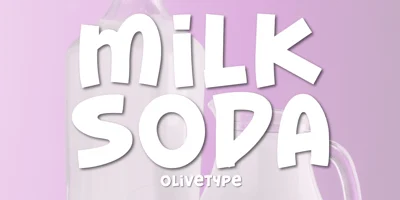
Milk Soda Font
Milk Soda Font is perfect for retro beverage branding, vintage diner signage, soda fountain graphics, nostalgic candy packaging, 1950s-themed events, classic ice cream parlor materials, bubbly lifestyle campaigns, old-fashioned sweet shop identity, fizzy product designs, and refreshing applications that celebrate the innocent charm and effervescent joy of classic American soda fountain culture.
What makes Milk Soda Font truly exciting is its authentic capture of soda fountain nostalgia and effervescent sweetness that transports audiences back to the golden age of ice cream parlors and neighborhood drugstore counters. This exceptional typeface embodies the spirit of classic American refreshment with its bubbly letterforms and fizzy character that convey both nostalgic charm and refreshing energy. The font's effervescent personality and vintage appeal make it perfect for brands seeking to communicate wholesome fun, nostalgic sweetness, and the timeless pleasure of simple refreshment experiences that bring smiles and create happy memories.
The Milk Soda Font family includes multiple weights and styles: Light, Regular, Bold, Bubbly, and Fizzy variations designed for maximum refreshing impact. Each family member maintains the distinctive soda fountain character while offering flexibility for diverse beverage applications and nostalgic branding systems. The comprehensive character set supports sweet typography needs and vintage design elements, making it suitable for international refreshment communications.
When you choose Milk Soda Font, you're selecting a typography treat that delivers authentic soda fountain charm and effervescent vintage appeal. This refreshing typeface excels in applications where nostalgia and sweetness are essential ingredients, delivering exceptional bubbly energy while maintaining wholesome authenticity. Whether you're designing beverage brands, vintage campaigns, sweet product packaging, or nostalgic marketing materials, this font provides the soda fountain charm and effervescent joy that resonates with audiences who appreciate simple pleasures, nostalgic sweetness, and the timeless appeal of classic American refreshment culture.